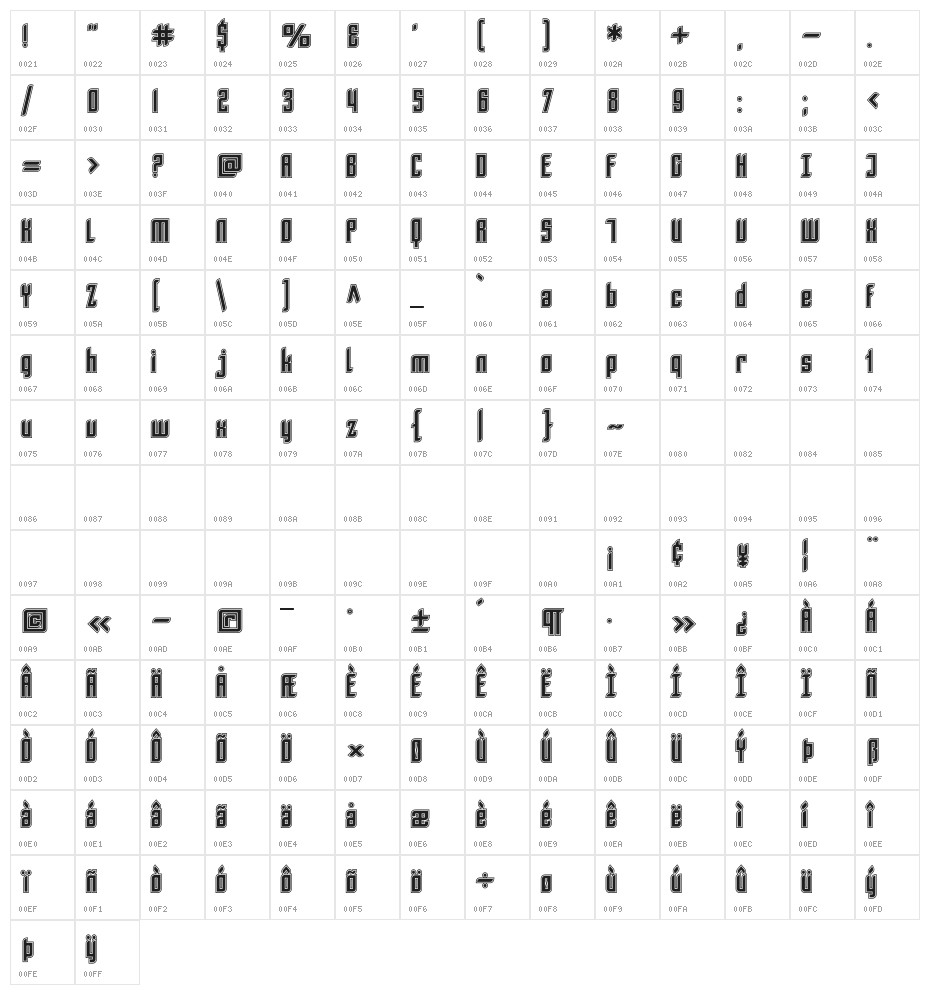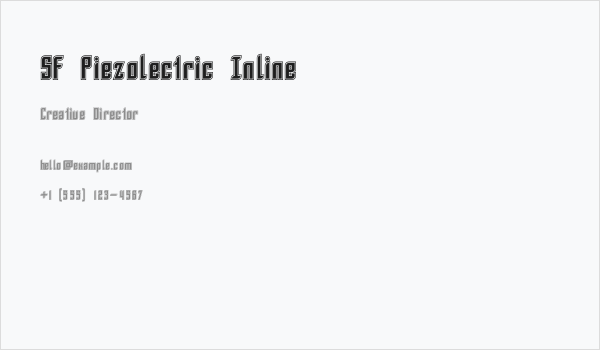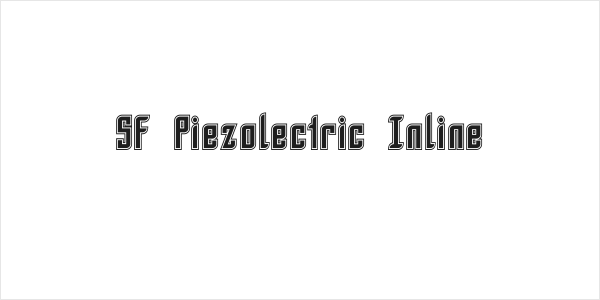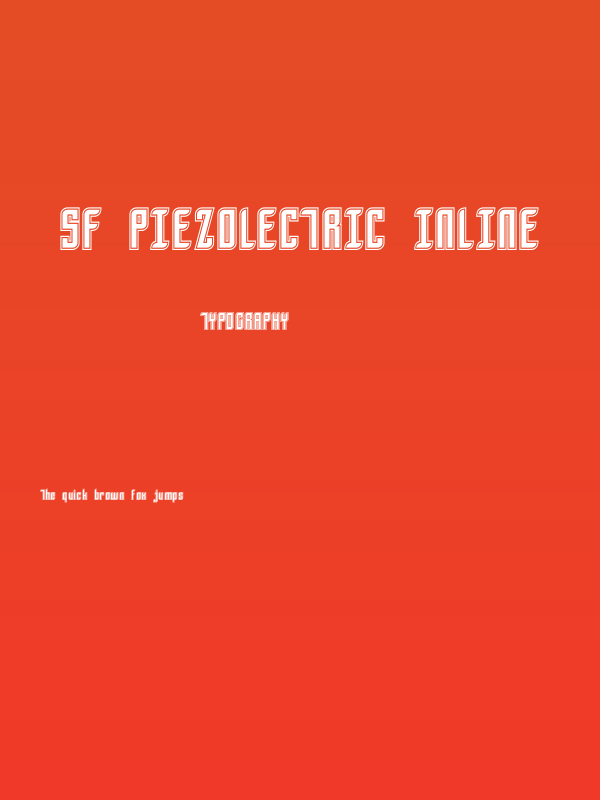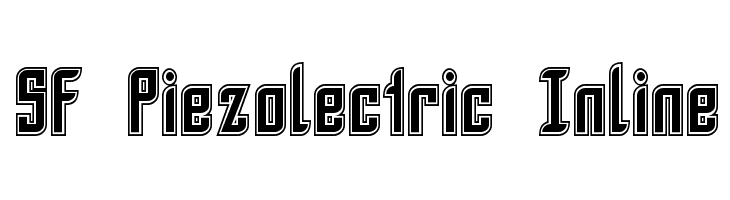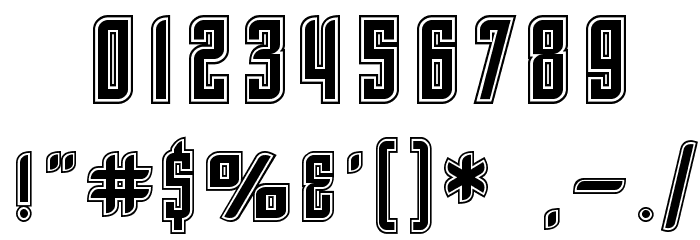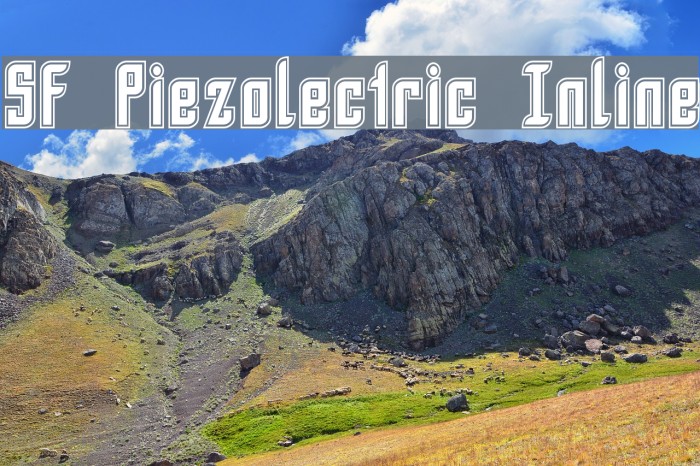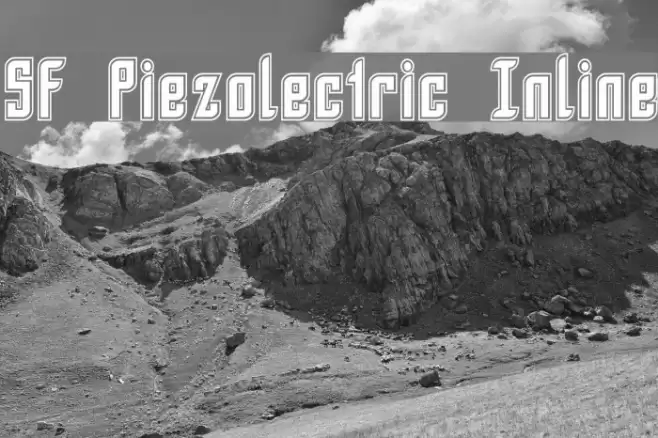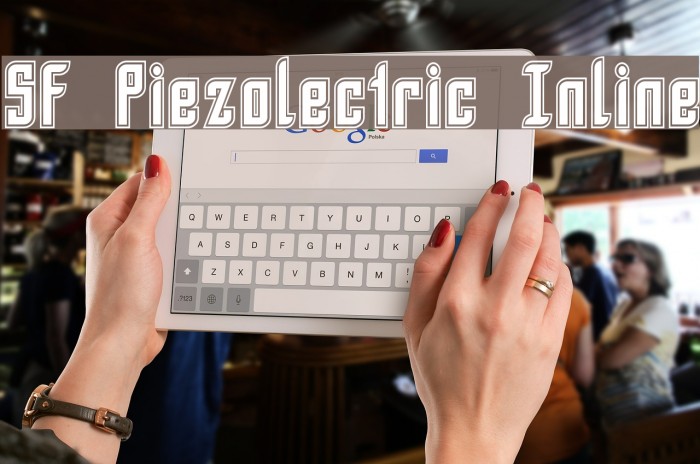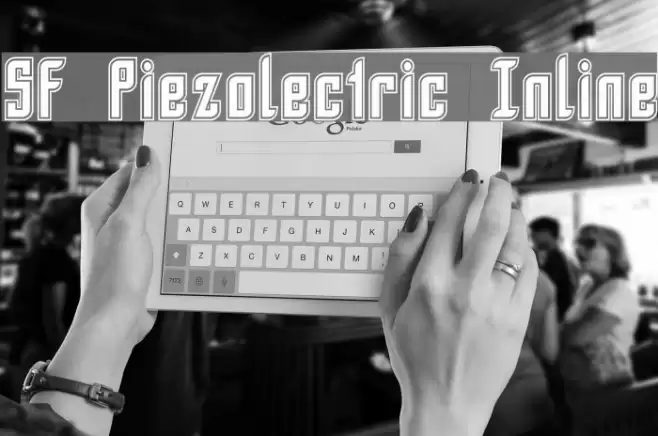
SF Piezolectric Inline Font
SF Piezolectric Inline Description
This font features a bold, geometric design with a distinct inline style that gives it a futuristic and tech-inspired appearance. The characters are outlined with a thick border, creating a striking contrast between the inner and outer sections. The uppercase and lowercase letters maintain a consistent height, providing a uniform look across the alphabet. The numbers and special characters follow the same design principles, ensuring a cohesive visual style. The font's structure is angular and sharp, with straight lines and right angles dominating the design, making it ideal for projects that require a modern and edgy aesthetic.
| Proposed Projects | Ideal for tech-related branding, futuristic posters, video game titles, and digital interfaces. |